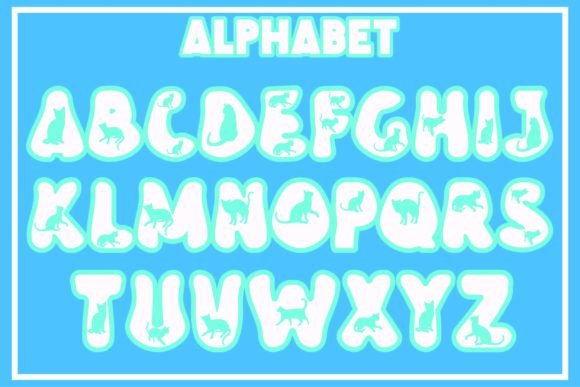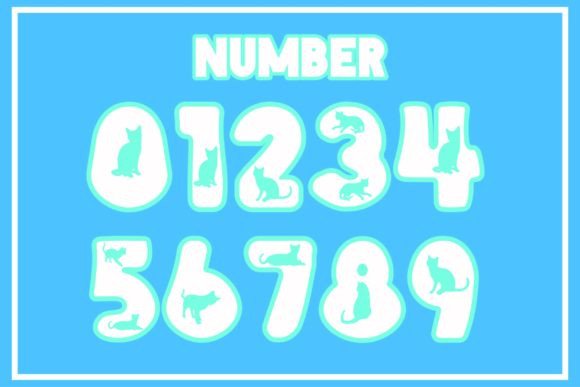
Introduction to Groovy Cat Font
Ggroovy Cat is a cool and friendly decorative font.
Whether you use it for cartoon-related designs, children’s games, or just any creation that requires a lovely touch, this font will be an amazing choice .
Key Features of Groovy Cat Font
Why Choose Groovy Cat Font?
Groovy Cat Font offers exceptional quality and versatility, making it a valuable addition to your design toolkit. Whether you’re creating for personal projects or commercial use, Groovy Cat Font delivers professional results.